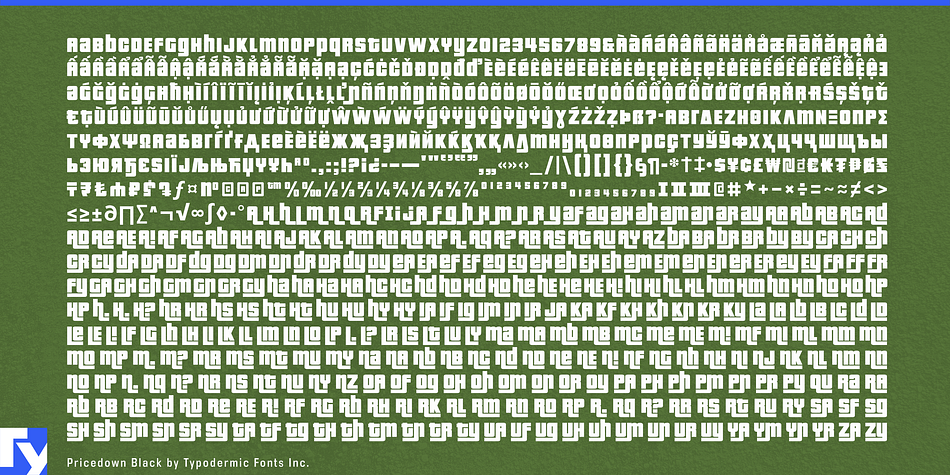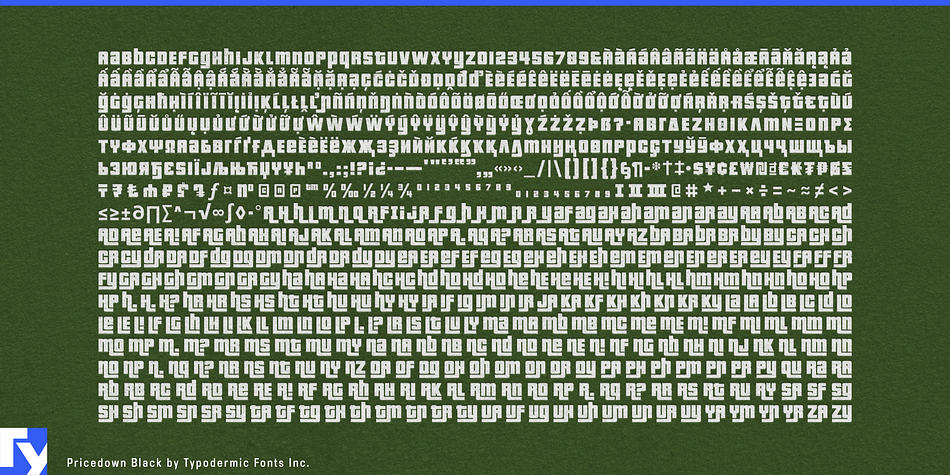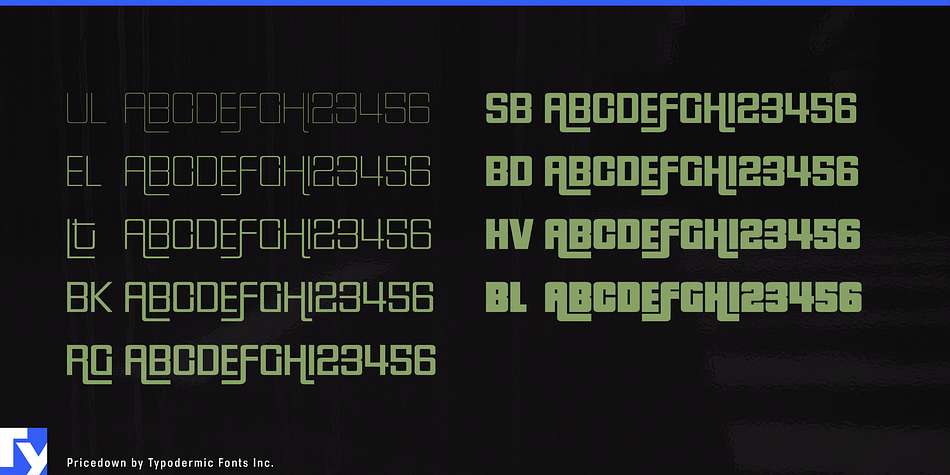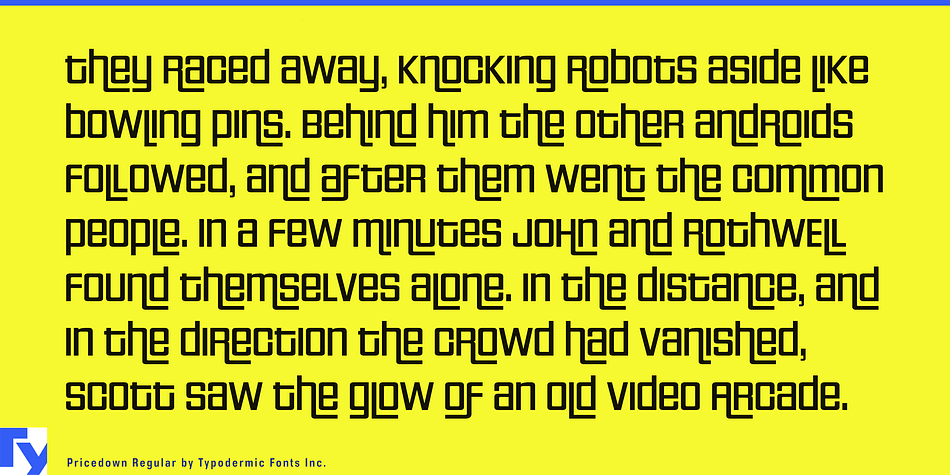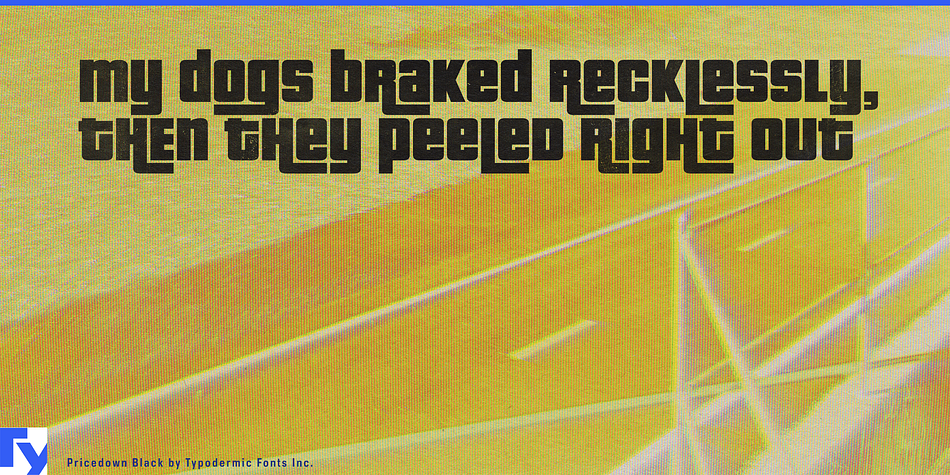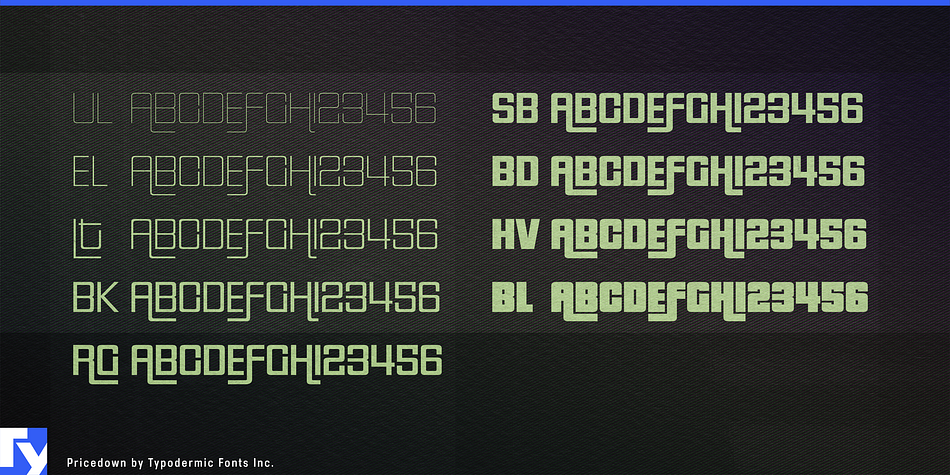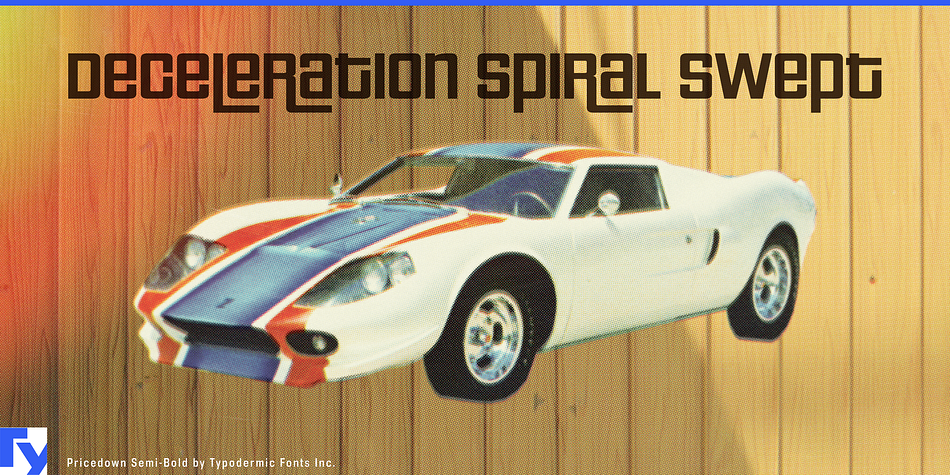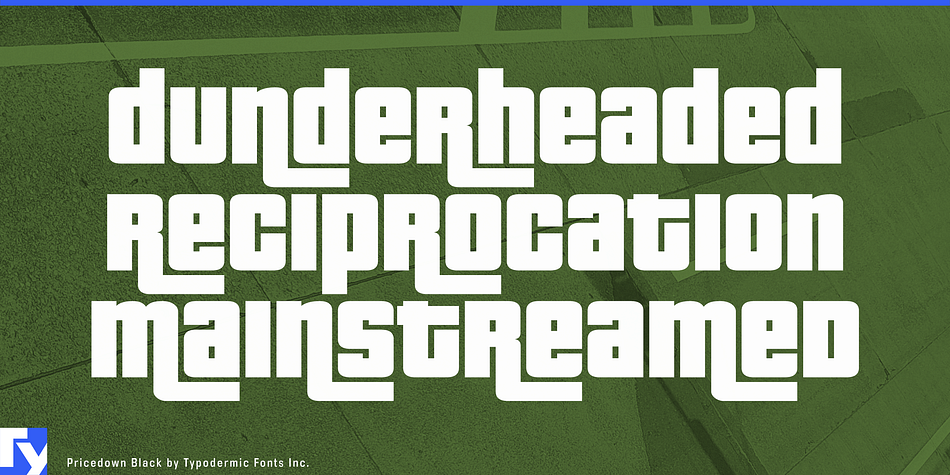
Pricedown is a display font family. This typeface has nine styles and was published by Typodermic Fonts Inc.
Pricedown, a single weight headline typeface released in 2000 has been rebuilt, expanded and improved. You can turn off the tails effect by disabling the ligatures feature in your application. In 2019, Vietnamese, Greek and Cyrillic language support was added.